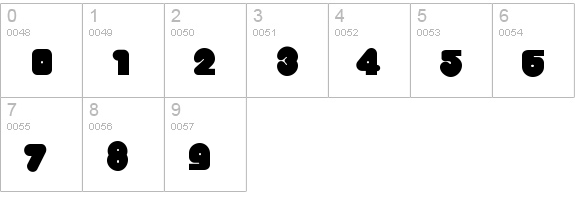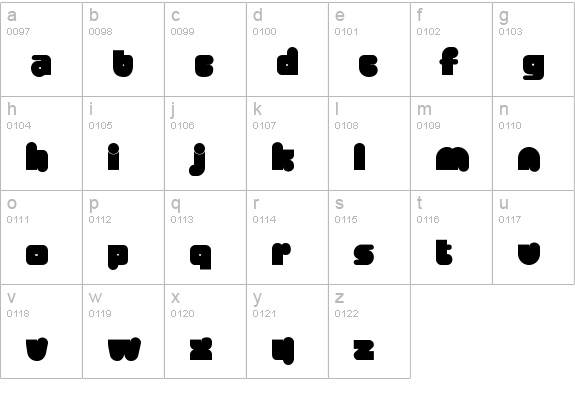
MrBig-Normal Font Details
MrBig-Normal is the standard, neutral variant in the MrBig typeface family \xE2\x80\x94 well suited to general body text, paragraphs, and standard typographic work.